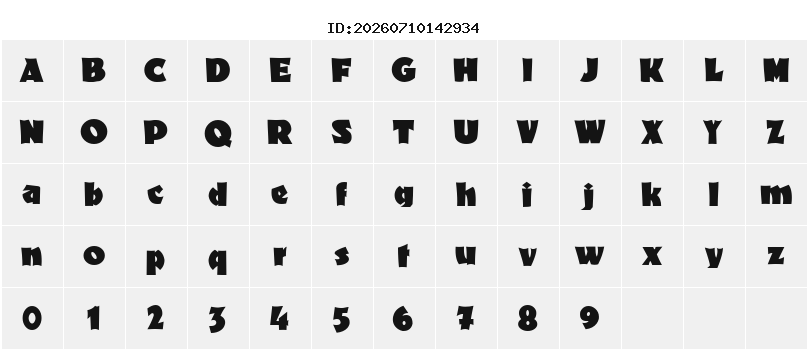
Fanfare Preview
• Font Name: Fanfare
• Font ID: Altsys Fontographer 4.0.3 Odin
• Full Font Name: Fanfare
• Version: Altsys Fontographer 4.0.3 4/24/95
• PostScript Name: Odin
• Character Count: 174
• Copyright: 1927 Louis Oppenheim
About Fanfare.ttf
Fanfare.ttf is a modern, elegant sans-serif font designed for ultimate readability and visual harmony. Perfect for branding, headlines, web design, and print materials.